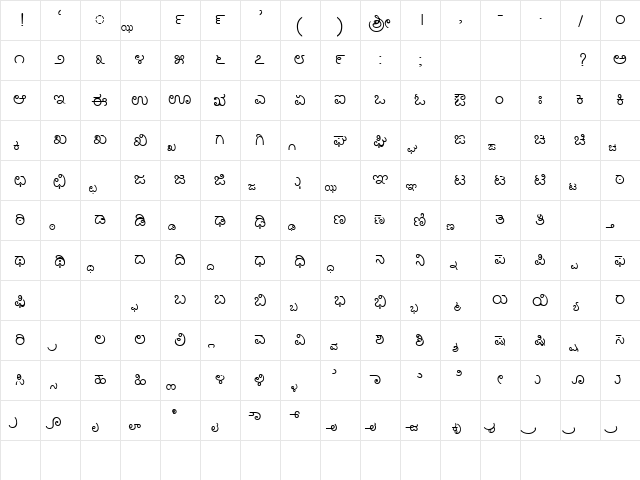
KN-TTUma Normal
Design Context for KN-TTUma Typeface
KN-TTUma is a composed and adaptable typeface that performs quietly and consistently across a wide range of design contexts.